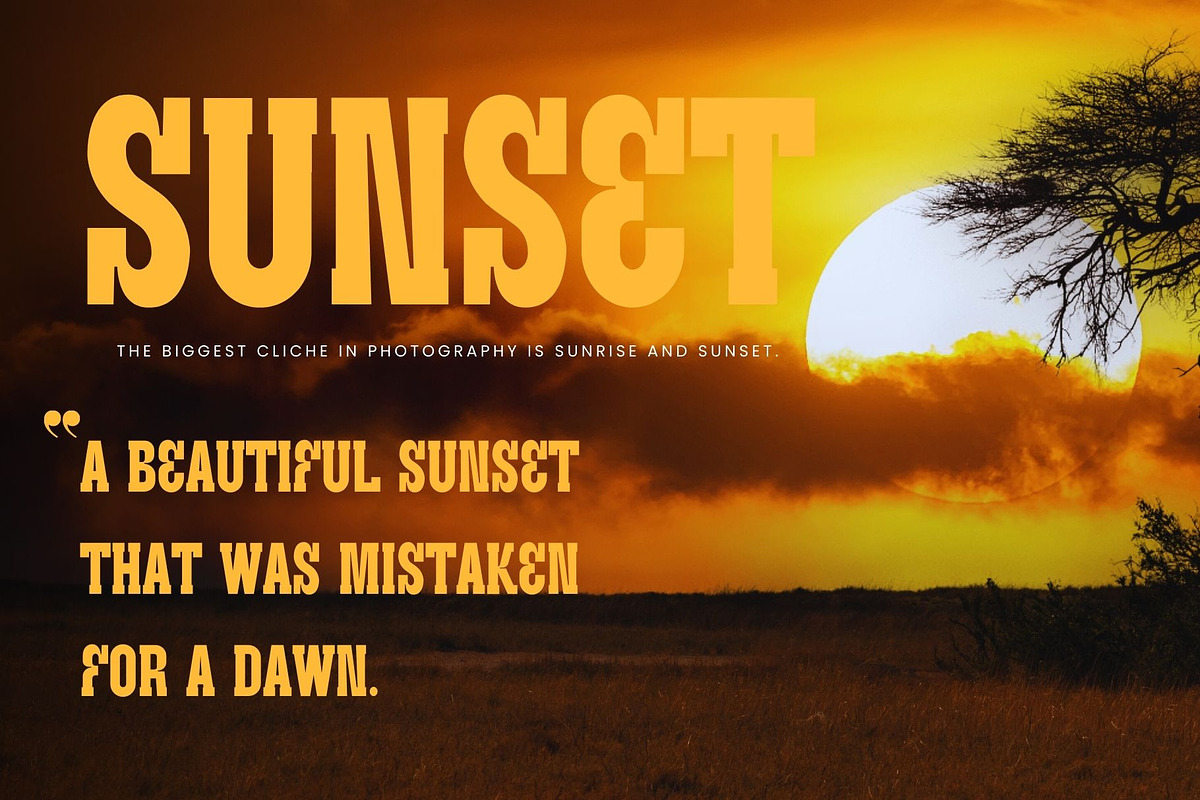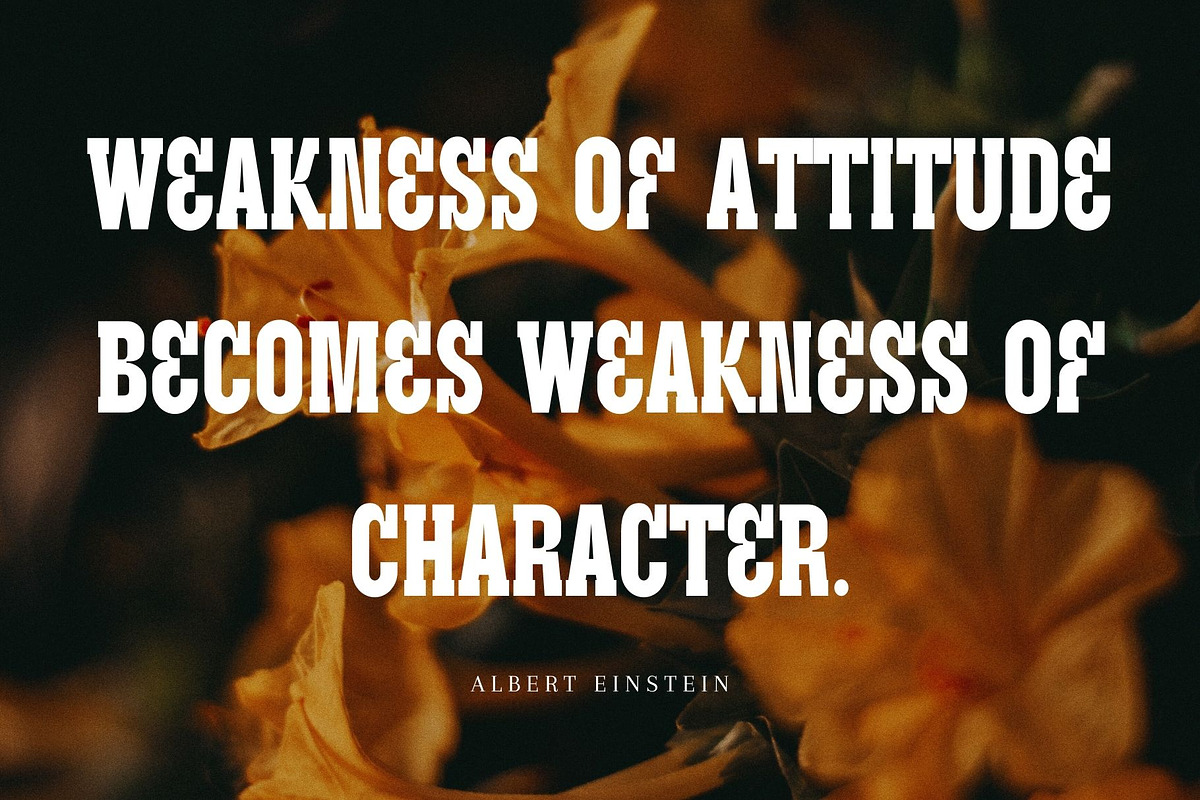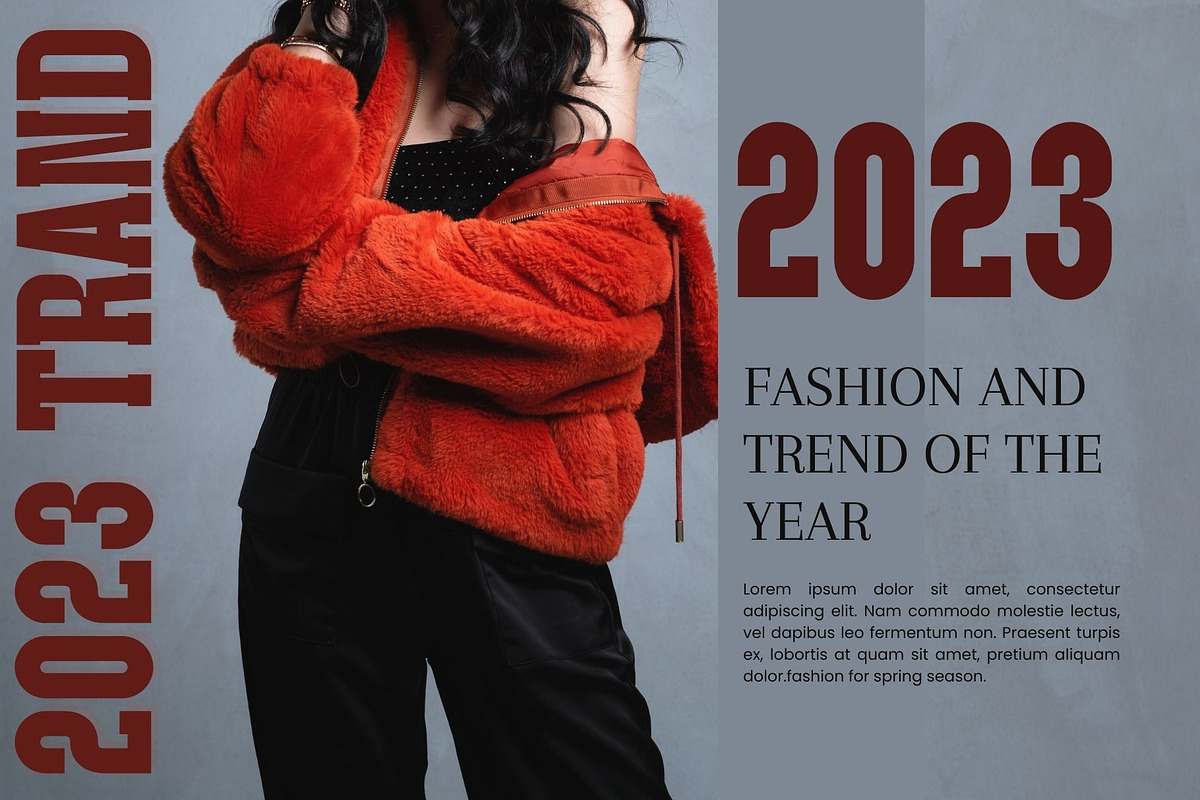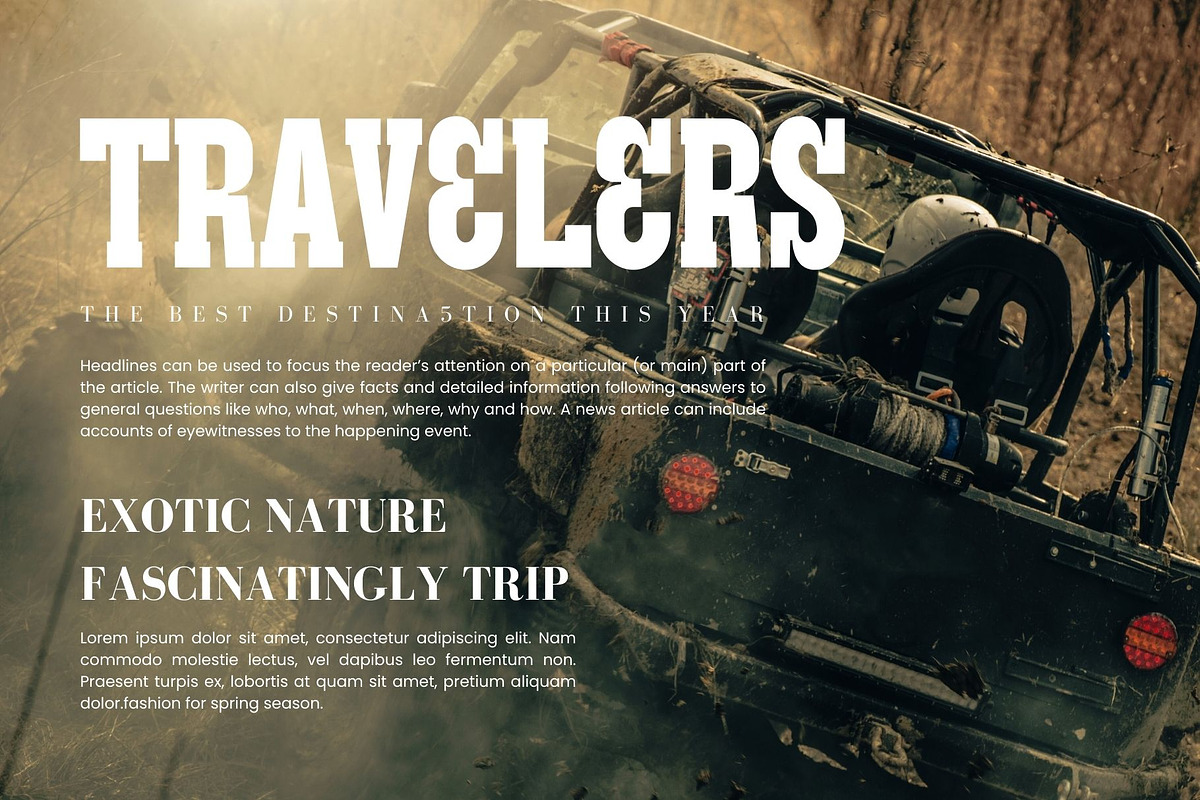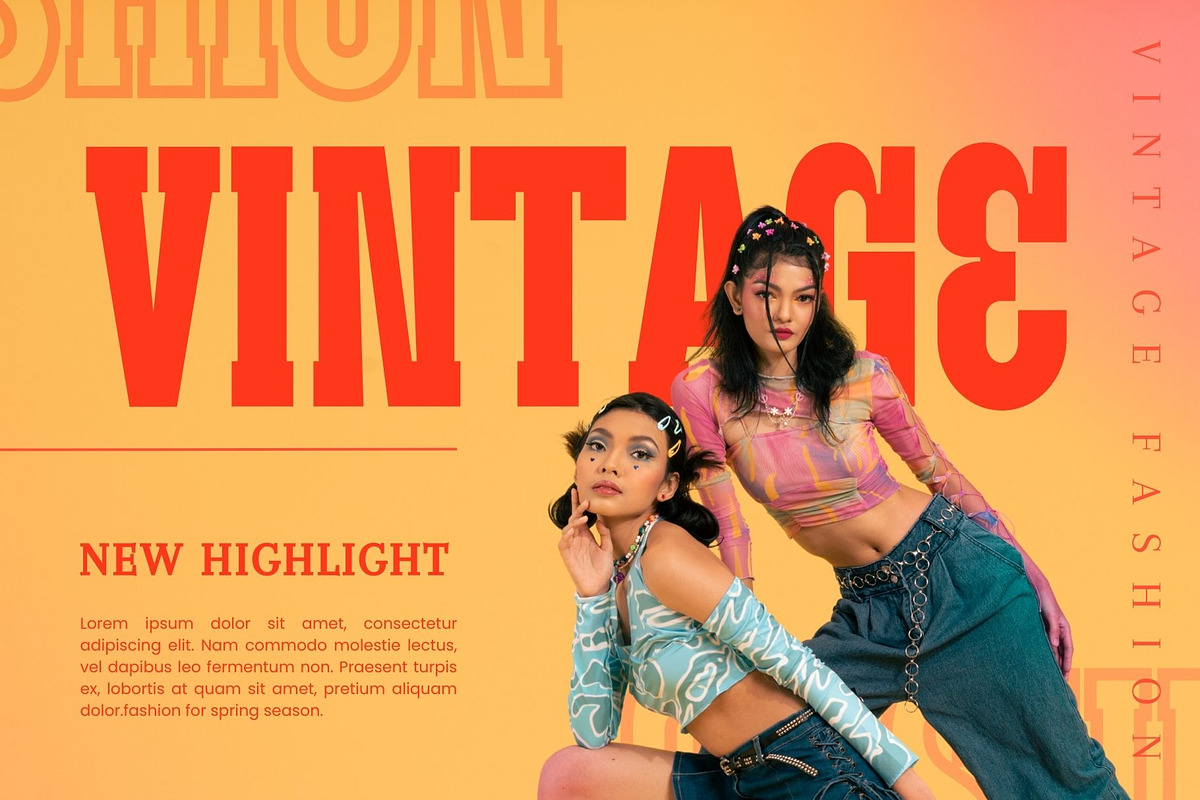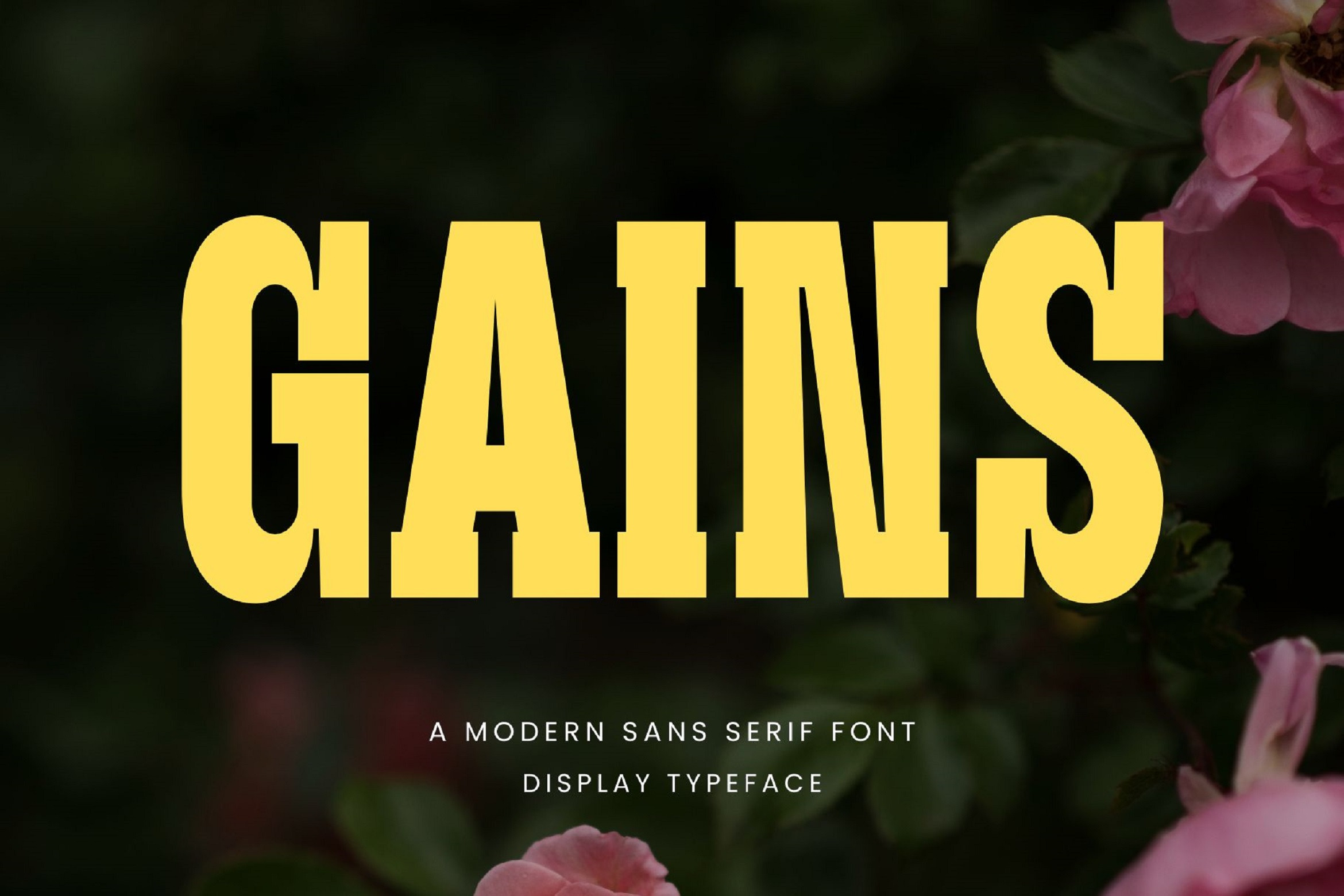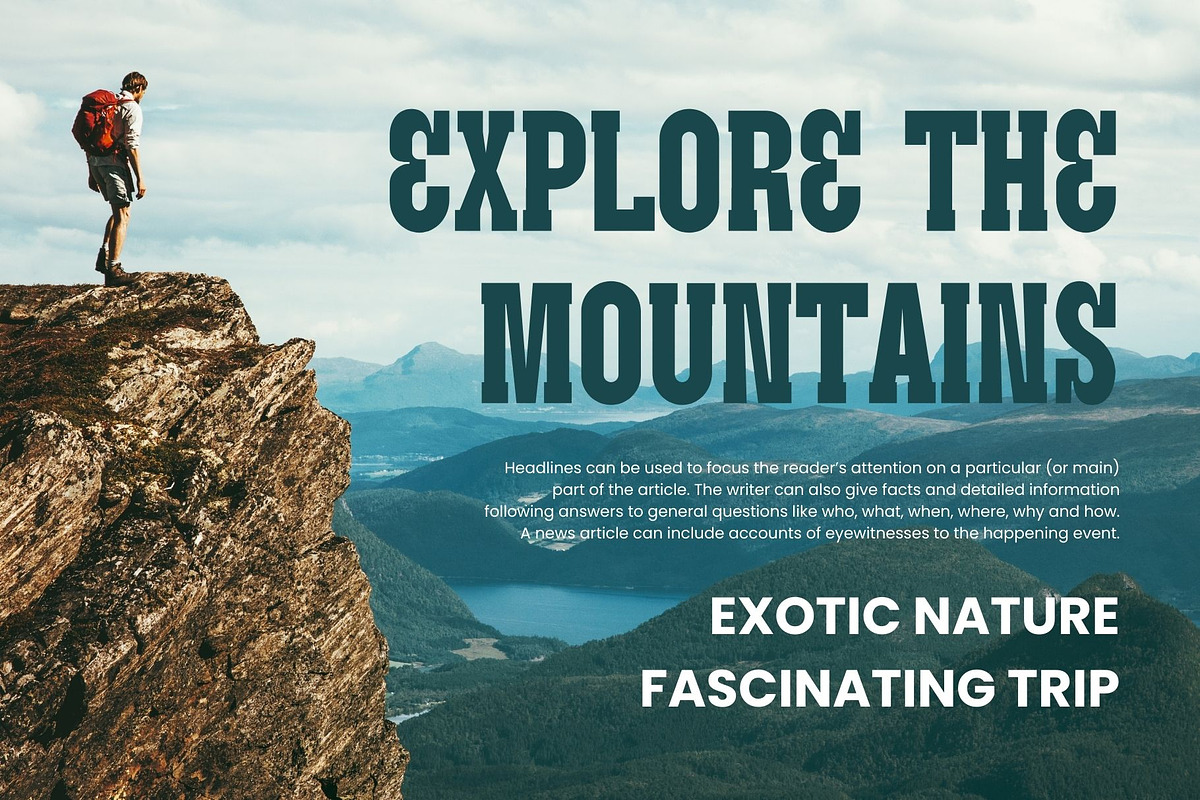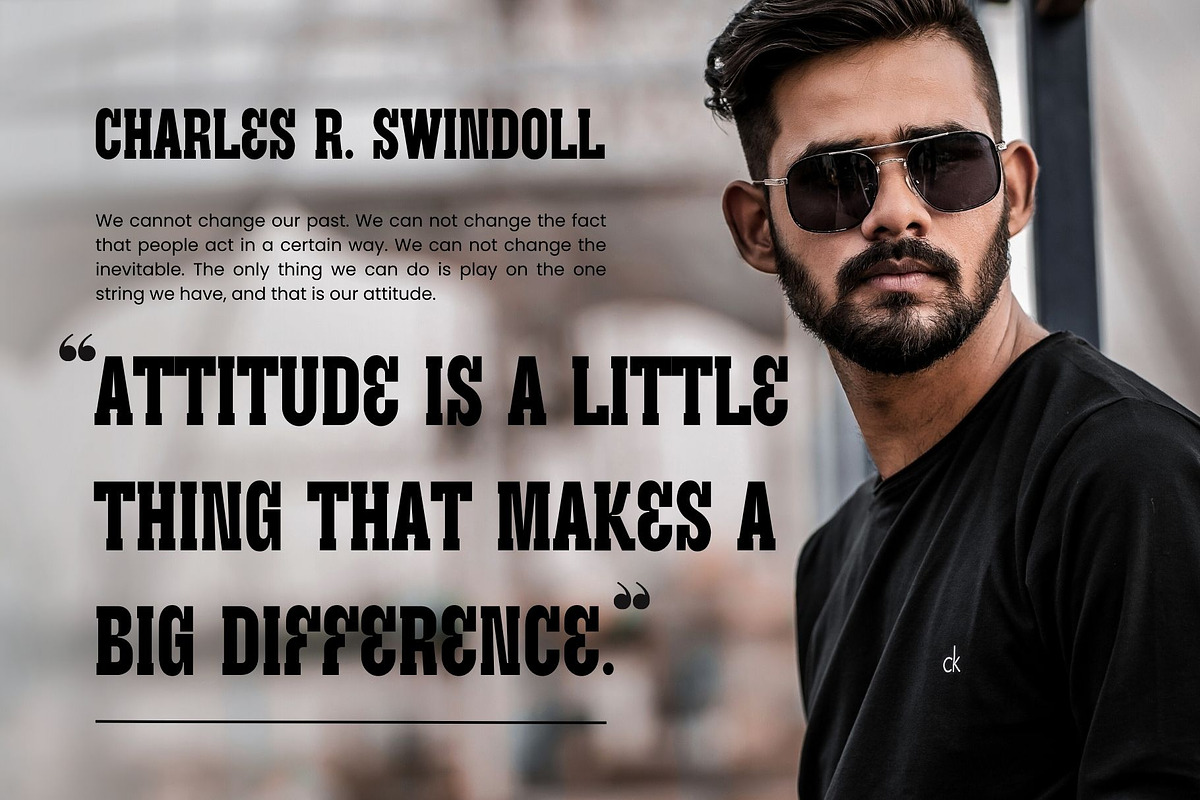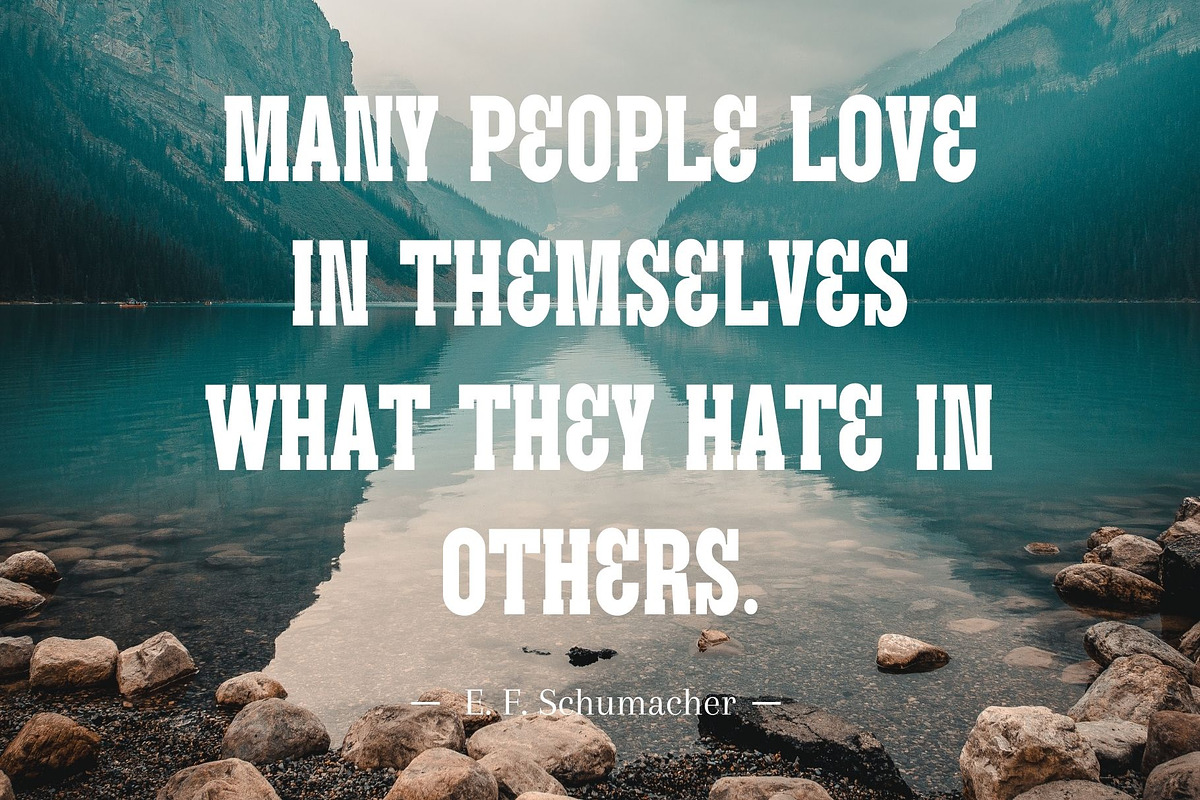
Gains Slab Serif Font
inspired by the famous minimalist logo perfect for the purposes of designing templates, brochures, videos, advertising branding, logos, invitation, layout design, elegant crafting, beauty design and more.